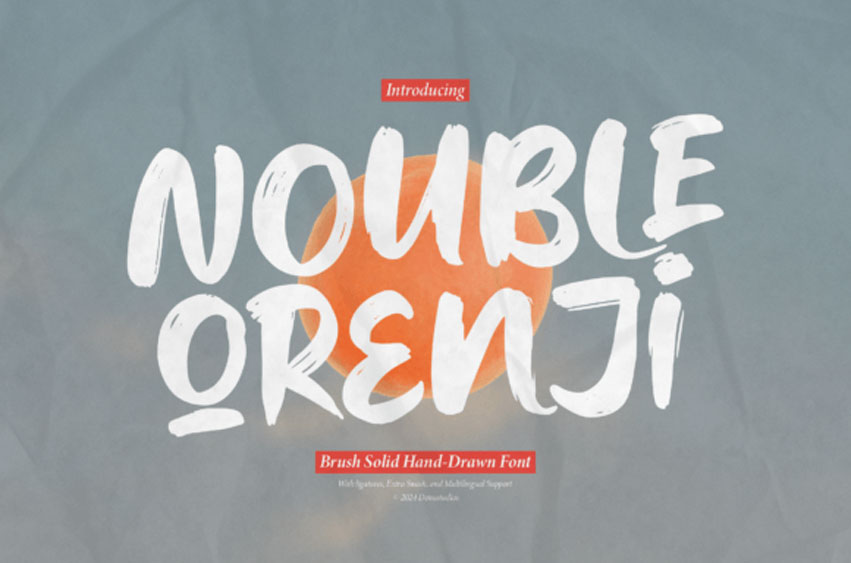
Nouble Orenji Font is a bold and strong hand-drawn font with a natural, artistic feel.
Its letters look like they were carefully sketched by hand, making it perfect for creative designs, posters, or unique logos. Simple yet eye-catching!